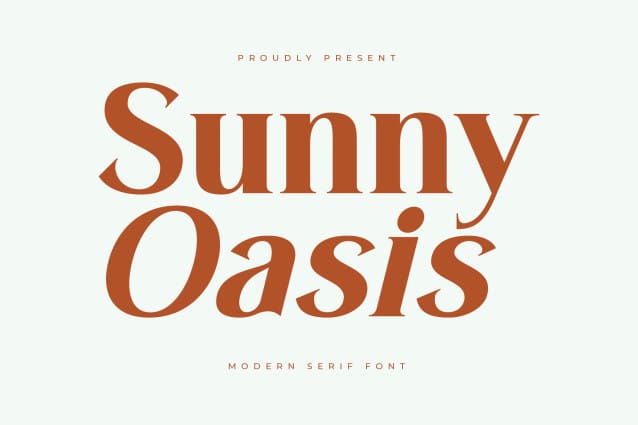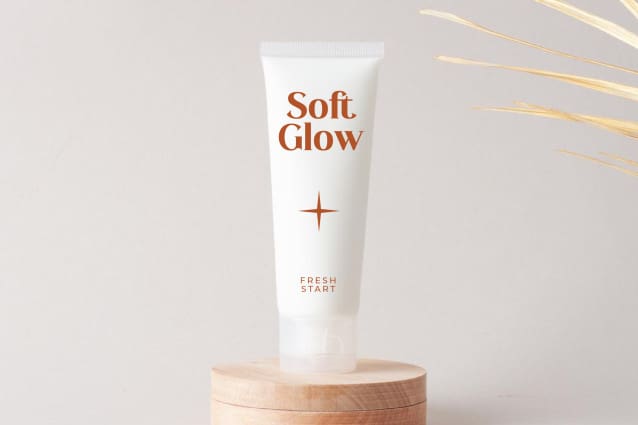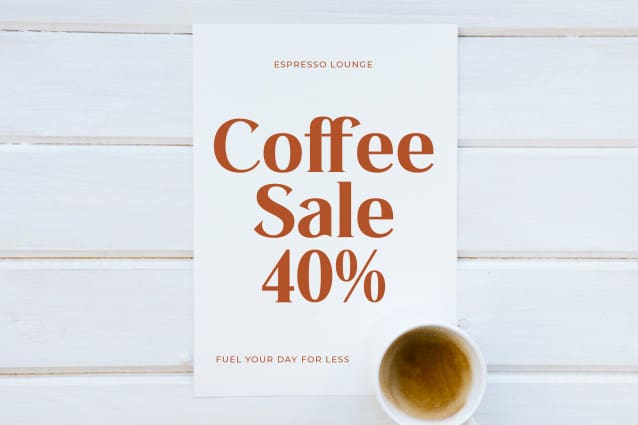
Sunny Oasis Font
Sunny Oasis Font – Modern Serif font , from Letterena, is a Luxury Serif font, suitable for any projects such as: logos, branding projects, homeware designs, product packaging, mugs, quotes, posters, shopping bags, t-shirts, book covers, name card, invitation cards, greeting cards, label, photography, watermark, special events, and all your other luxury and beautiful projects that need a Luxury Serif taste.